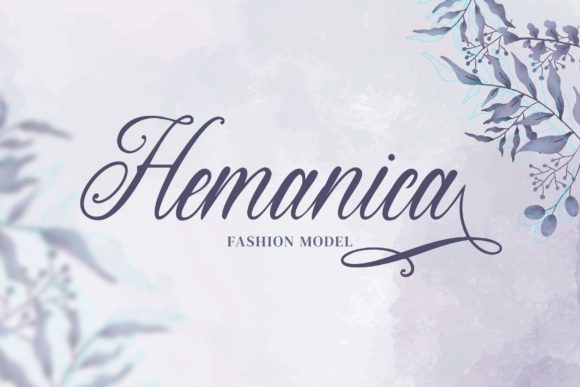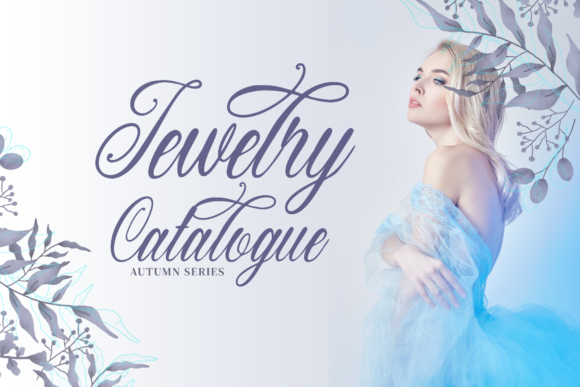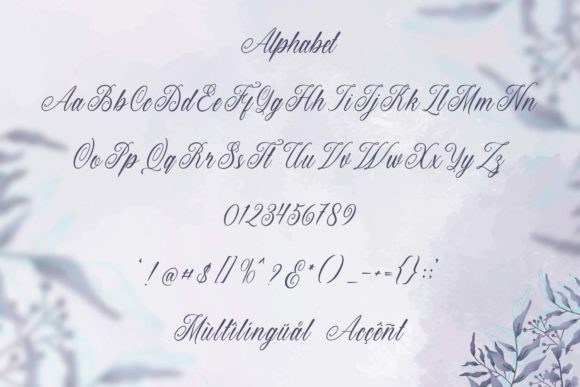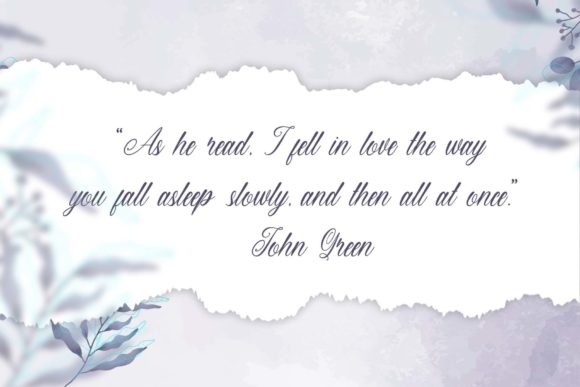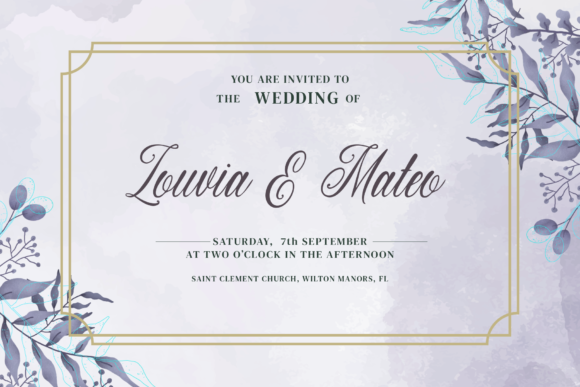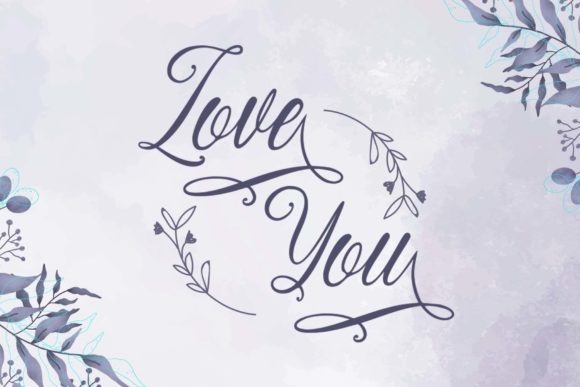
Introduction to Ramhesy Script Font
Ramhesy Script is a beautiful and delicate handwritten font with a unique feel and a stunning impact.
It will add a luxury spark to any design project that you wish to create Add it confidently to your projects, and you will love the results.
Key Features of Ramhesy Script Font
Why Choose Ramhesy Script Font?
Ramhesy Script Font offers exceptional quality and versatility, making it a valuable addition to your design toolkit. Whether you’re creating for personal projects or commercial use, Ramhesy Script Font delivers professional results.